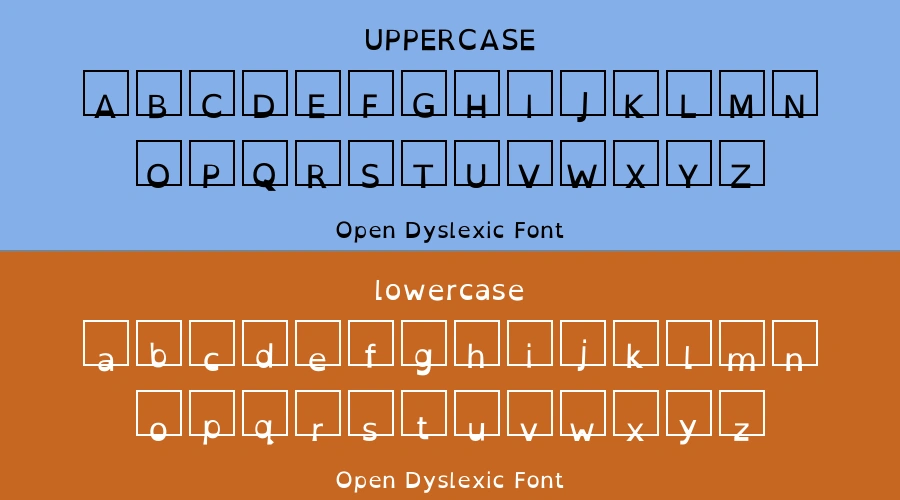
About Open Dyslexic Font
Open Dyslexic Font embodies typographic excellence through its masterful combination of rounded apexes and professional finish. Created for financial statements, this typeface delivers exceptional sophistication and creative impact across all applications. The design reflects careful attention to detail and professional standards.
Advanced capabilities include distinctive humanist proportions and versatile expert sets, giving designers creative control. When used in heritage publications, Open Dyslexic Font exhibits remarkable detail preservation. The harmonious balance between terminal angle and professional credibility sets this typeface apart.